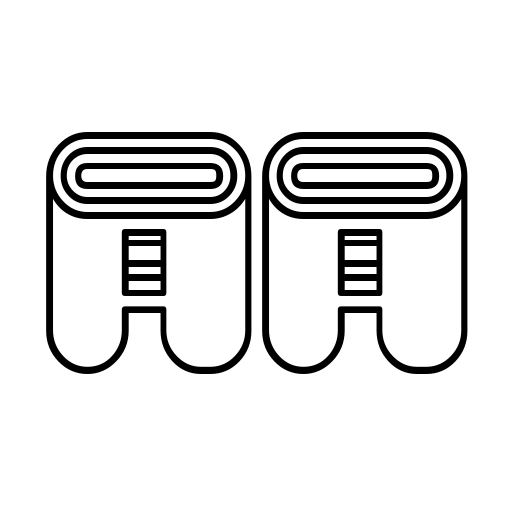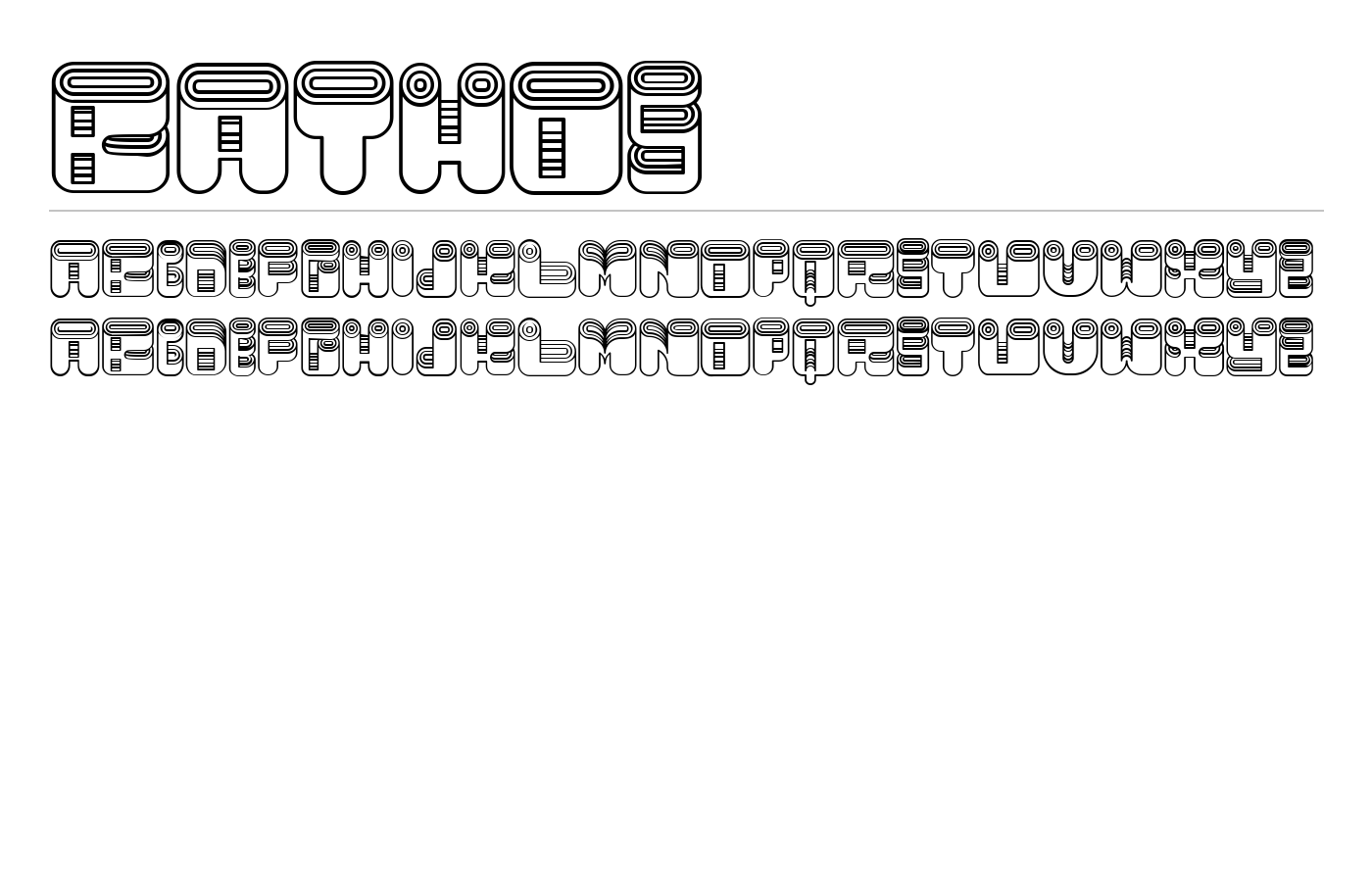
Bathos is a distinctive decorative display font featuring bold, geometric letterforms with layered, outlined strokes that create a three-dimensional, almost futuristic effect. This font's playful and complex design suits eye-catching headlines, logos, or creative projects seeking a modern, tech-inspired vibe with a touch of retro flair. Its unique style makes it ideal for branding and posters where strong visual impact is key.
Bathos Font
About Bathos Font
| Font family | Bathos Font |